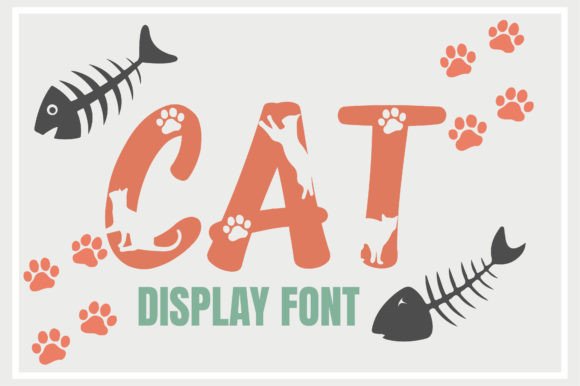
The Purrfect Font: A Deep Dive into Cat Font
I’ll never forget the time I was working on a children’s party invitation design, and I just couldn’t find the right font. The project required something fun, playful, and eye-catching, but everything I tried seemed either too boring or too over-the-top. That’s when I stumbled upon Cat Font, a thick-lettered and fun-looking decorative font that instantly captured the playful spirit I was looking for. In this article, I’ll share my experience with Cat Font, its features, and how to make the most of it in your designs.
An Honest Review of Cat Font
What I Love About Cat Font ✨
- 💕 The font’s playful and energetic vibe makes it perfect for children-themed designs, such as party invitations, kids’ apparel, and educational materials.
- ✅ The thick lettering ensures that the text remains legible even at smaller sizes, making it versatile for various design applications.
- 🎉 Cat Font comes with a range of OpenType features, including glyphs and stylistic alternates, which allow for creative experimentation and customization.
- ⚠️ While Cat Font is excellent for headlines and titles, it may not be the best choice for body text due to its decorative nature.
- ⚠️ Some users may find the font’s bold style overwhelming for certain design projects, requiring careful consideration of color schemes and layout.
The Designer Inspiration Behind Cat Font
Cat Font was designed with the intention of capturing the playful spirit of childhood. Its creator, a passionate typographer, aimed to craft a font that would bring joy and whimsy to designs for kids. By combining thick lettering with fun OpenType features, Cat Font has become a go-to choice for designers seeking to create engaging and lively designs.
| What type of designs is Cat Font best suited for? | Cat Font is perfect for children-themed designs, such as party invitations, kids’ apparel, educational materials, and nursery decor. |
| Does Cat Font support OpenType features? | Yes, Cat Font comes with a range of OpenType features, including glyphs and stylistic alternates, which allow for creative experimentation and customization. |